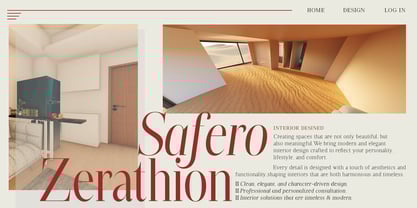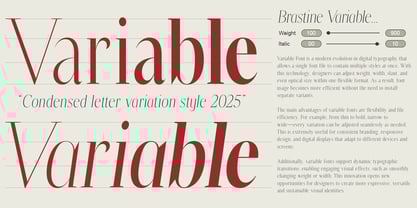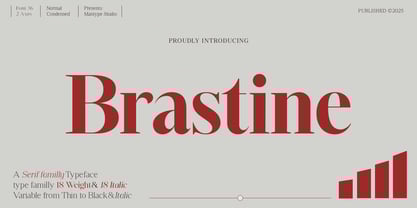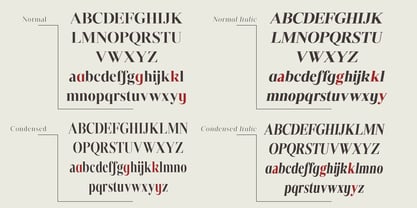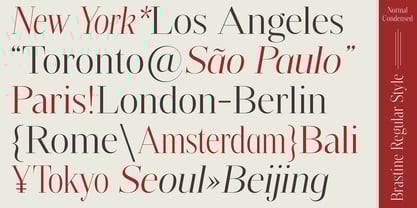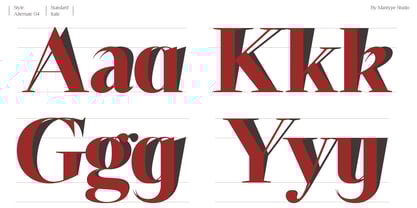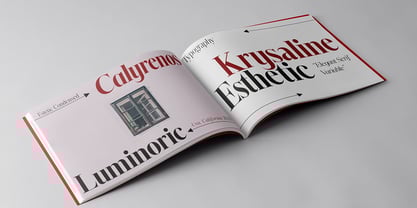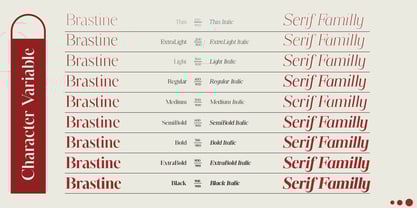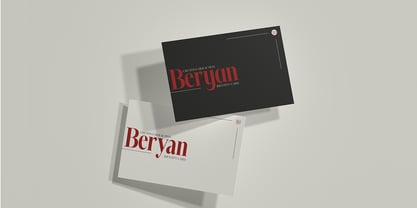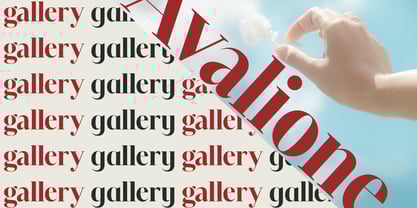
Brastine
by Mantype Studio
The Brastine Font Family was designed by Sulai Man and published by Mantype Studio. Brastine contains 38 styles and family package options.
Brastine is a modern, elegant, and versatile serif typeface family, designed by Mantype Studio. It offers a perfect balance between classic style and contemporary touch, making it an ideal choice for a wide range of visual design needs.
Brastine comes with:
• 36 Font Styles: consisting of 18 Weights and 18 Italics.
• Variable Font Options: ranging from Thin to Black, complete with Italic versions.
• 2 Axes of Variation, allowing flexible adjustments for adaptive typography.
• Two main styles: Normal and Condensed, providing more freedom in layout exploration.
With its sturdy yet refined serif letterforms, Brastine is perfectly suited for:
• Brand identities (logos and visual marks)
• Editorial design (magazines, books, articles)
• Headlines that demand strength and elegance
• Modern UI/UX typography
• Creative works that combine tradition with modernity
Overall, Brastine radiates strength, elegance, and flexibility, establishing itself as a premium serif choice for design in 2025 and beyond.